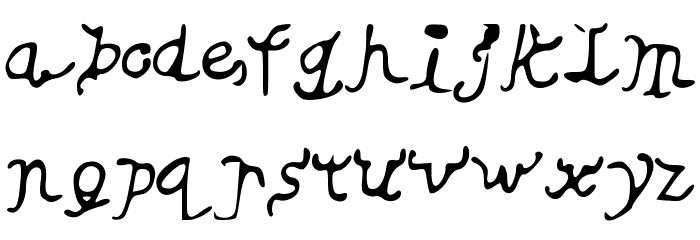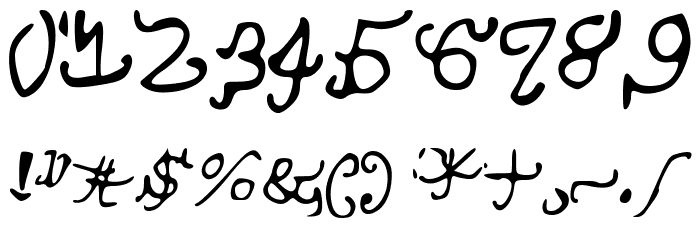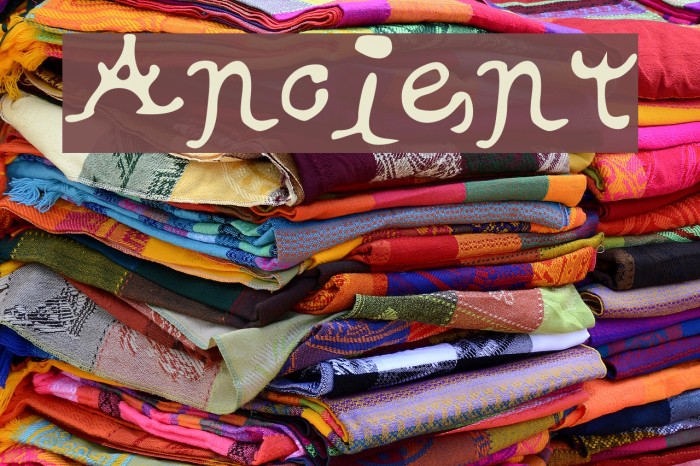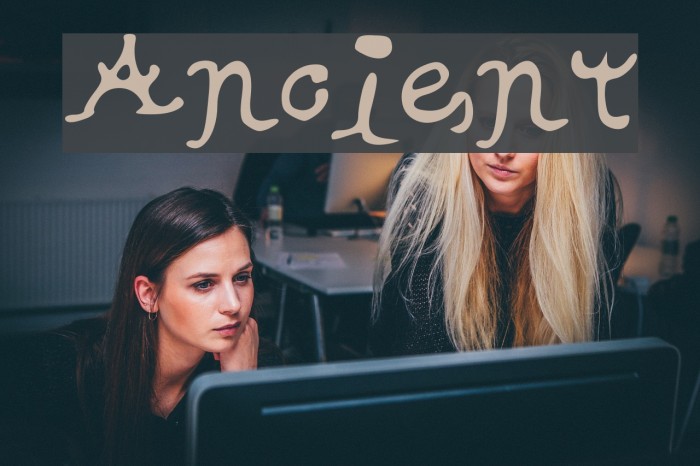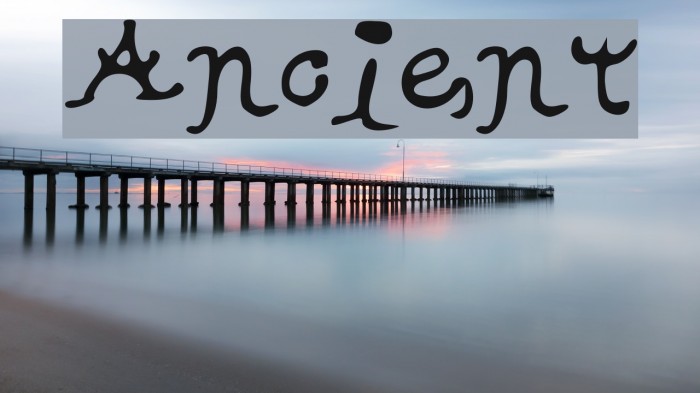
Ancient Font
This font features a unique and artistic style reminiscent of ancient scripts, characterized by its flowing, organic forms and decorative elements. The letters have an uneven baseline, giving them a hand-drawn appearance that adds to their charm. The strokes are varied, with some letters featuring thicker lines and others more delicate, creating a dynamic visual texture. The uppercase and lowercase letters maintain a consistent style, with distinctive curves and loops that enhance the font's whimsical and historical feel. Numbers and special characters are equally ornate, integrating seamlessly with the alphabetic characters. This font is ideal for projects that require a touch of antiquity or a handcrafted aesthetic.
An artistic, ancient-inspired font with flowing, decorative forms.
- Proposed Projects: Ideal for historical-themed designs, invitations, posters, and artistic projects requiring a vintage or handcrafted look.
- Overall Style: Vintage
- Use Case: Logos, Posters, Invitations